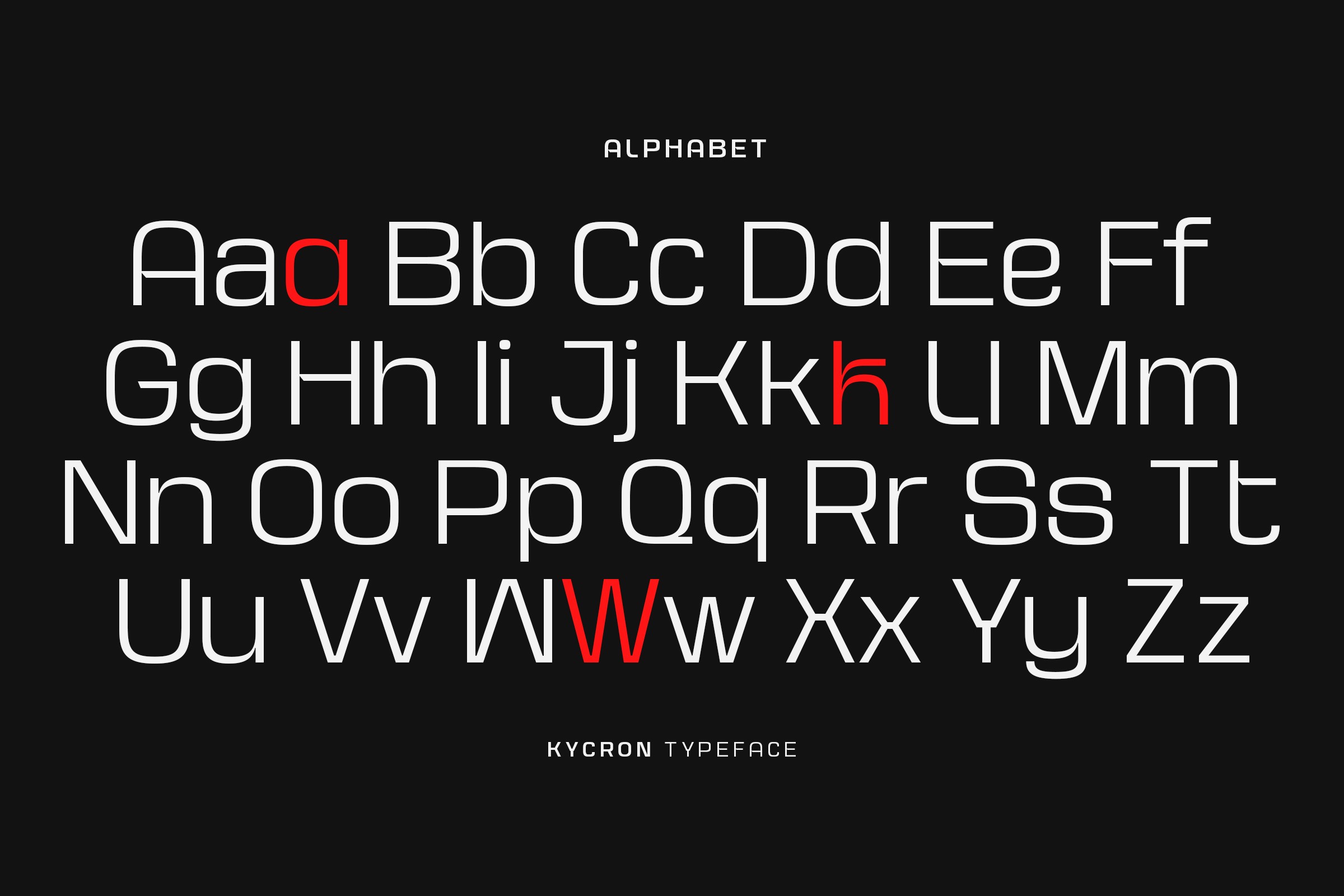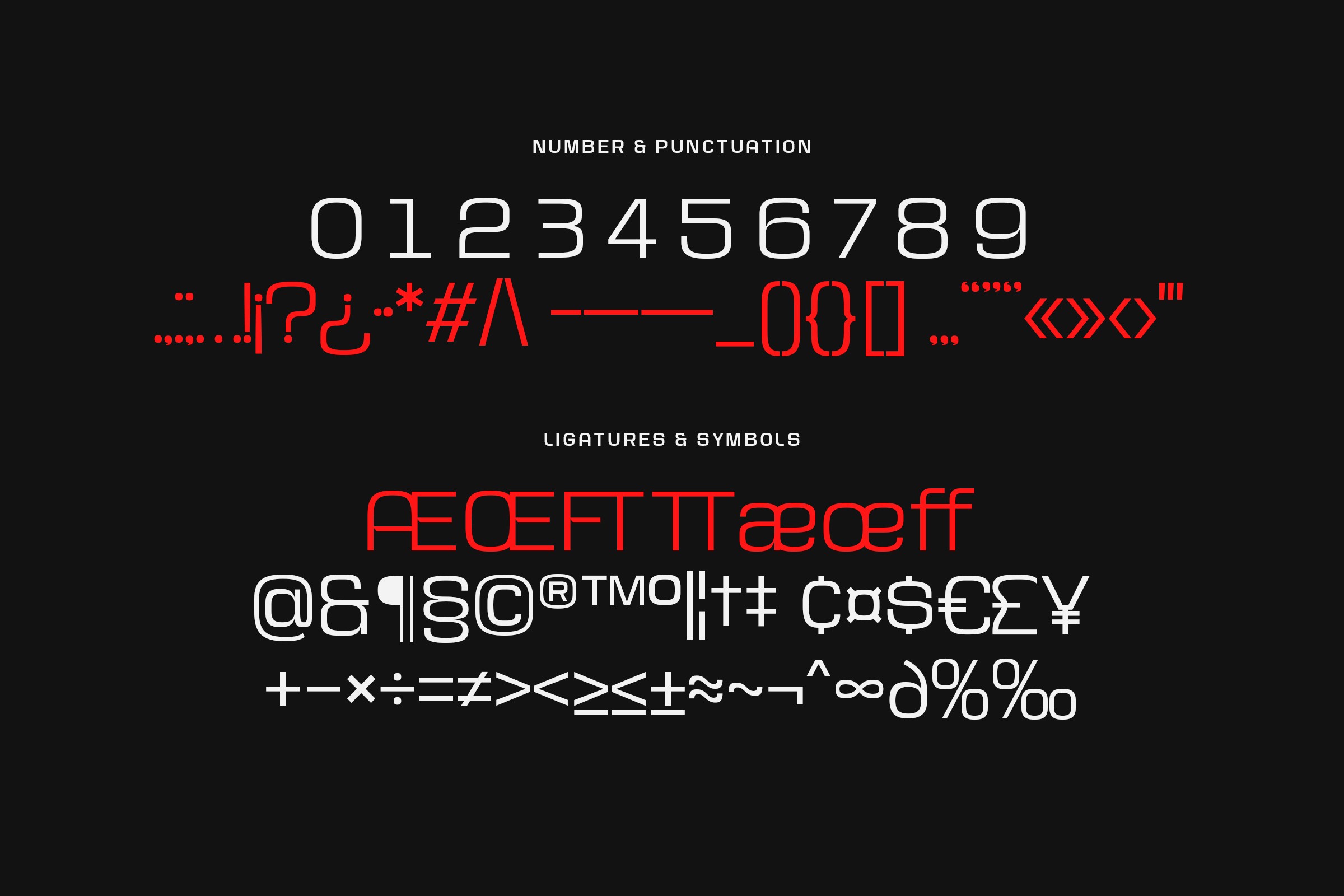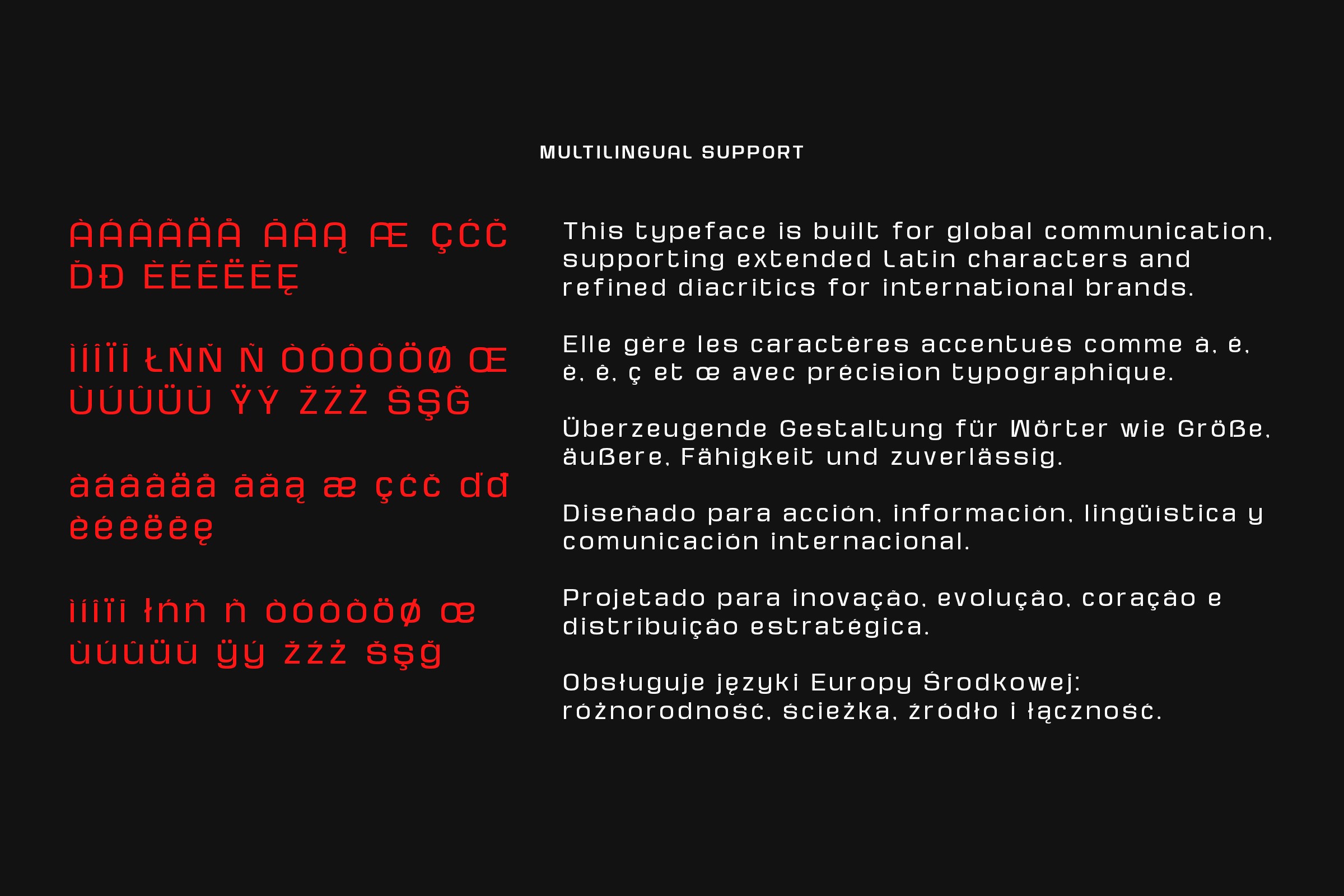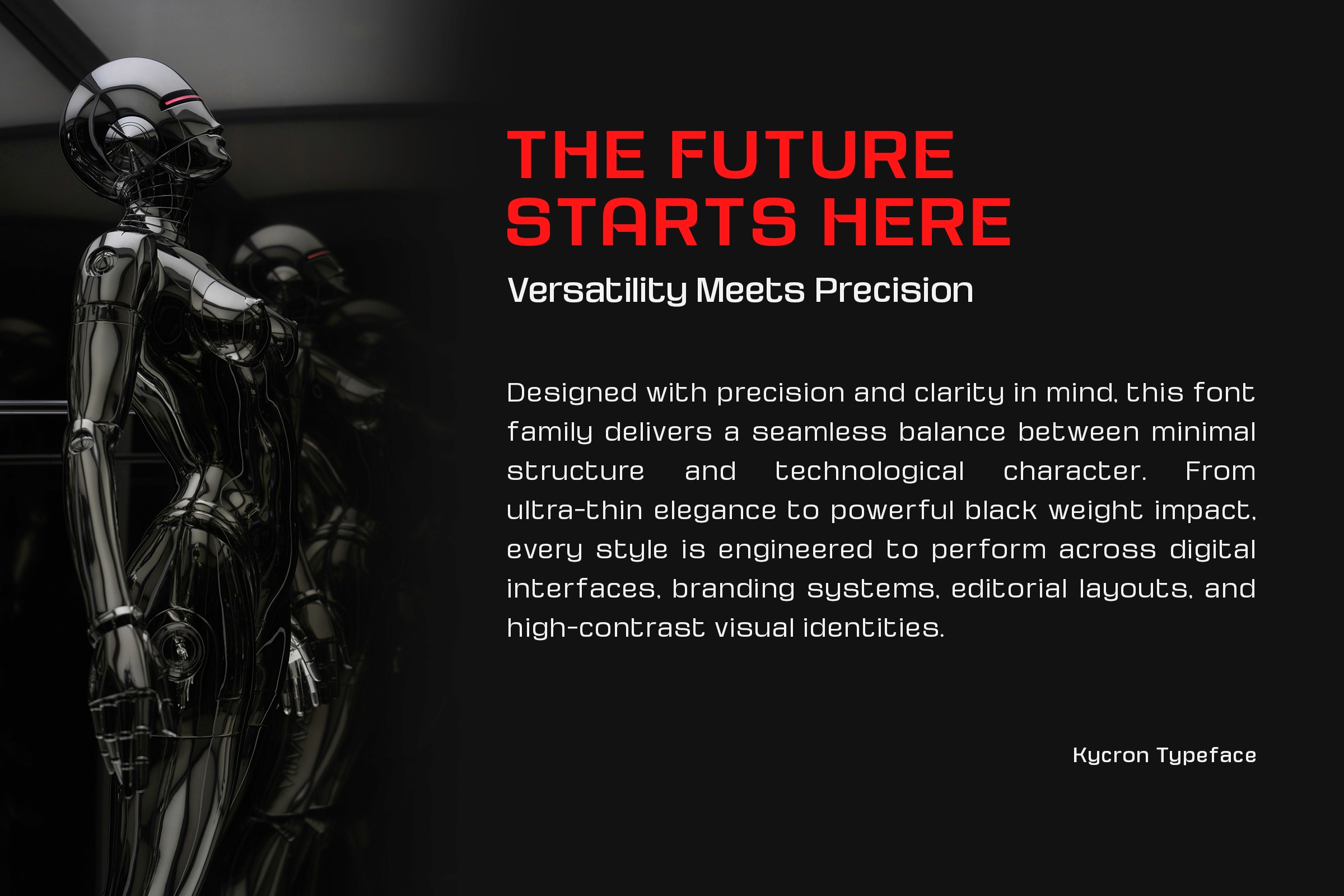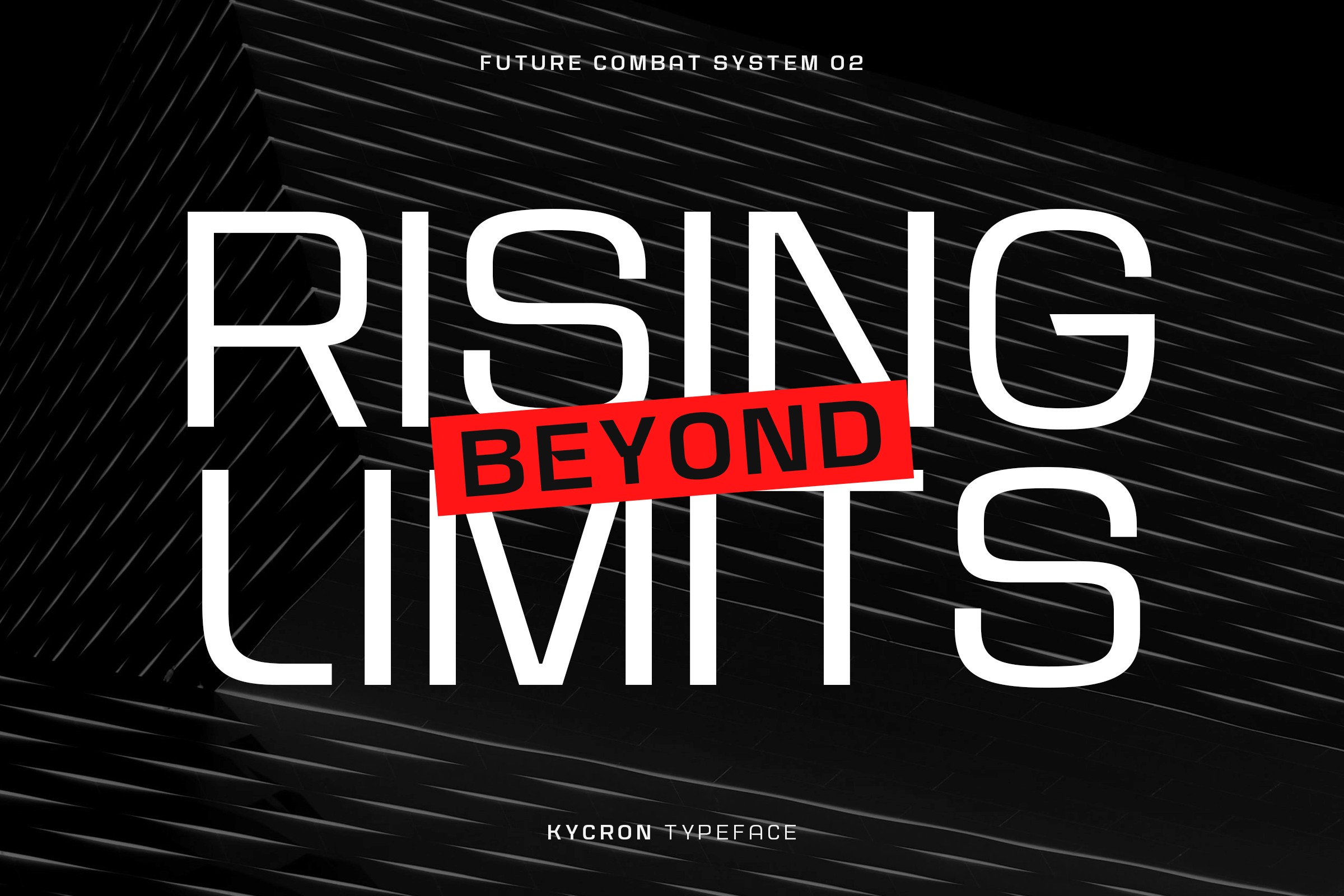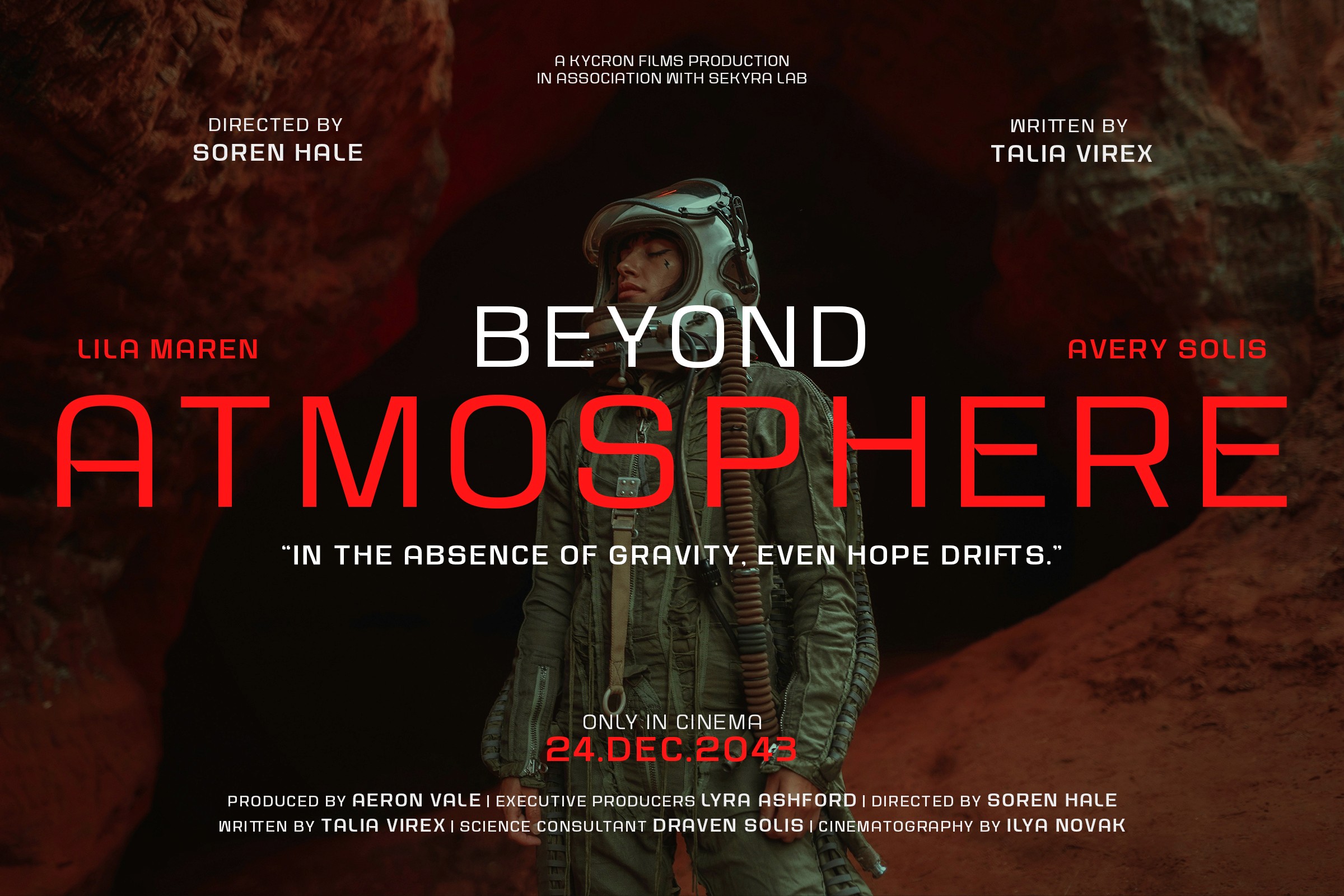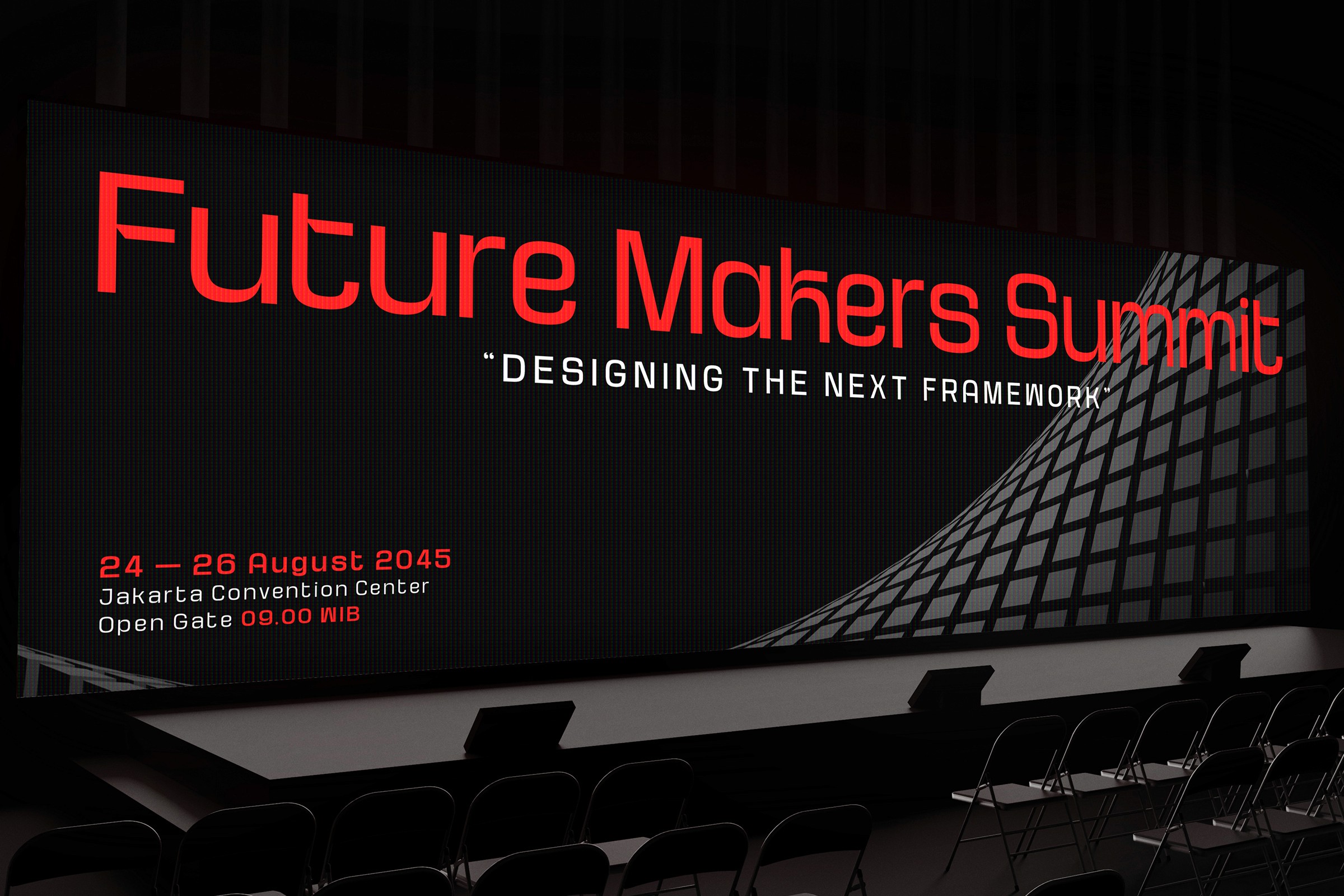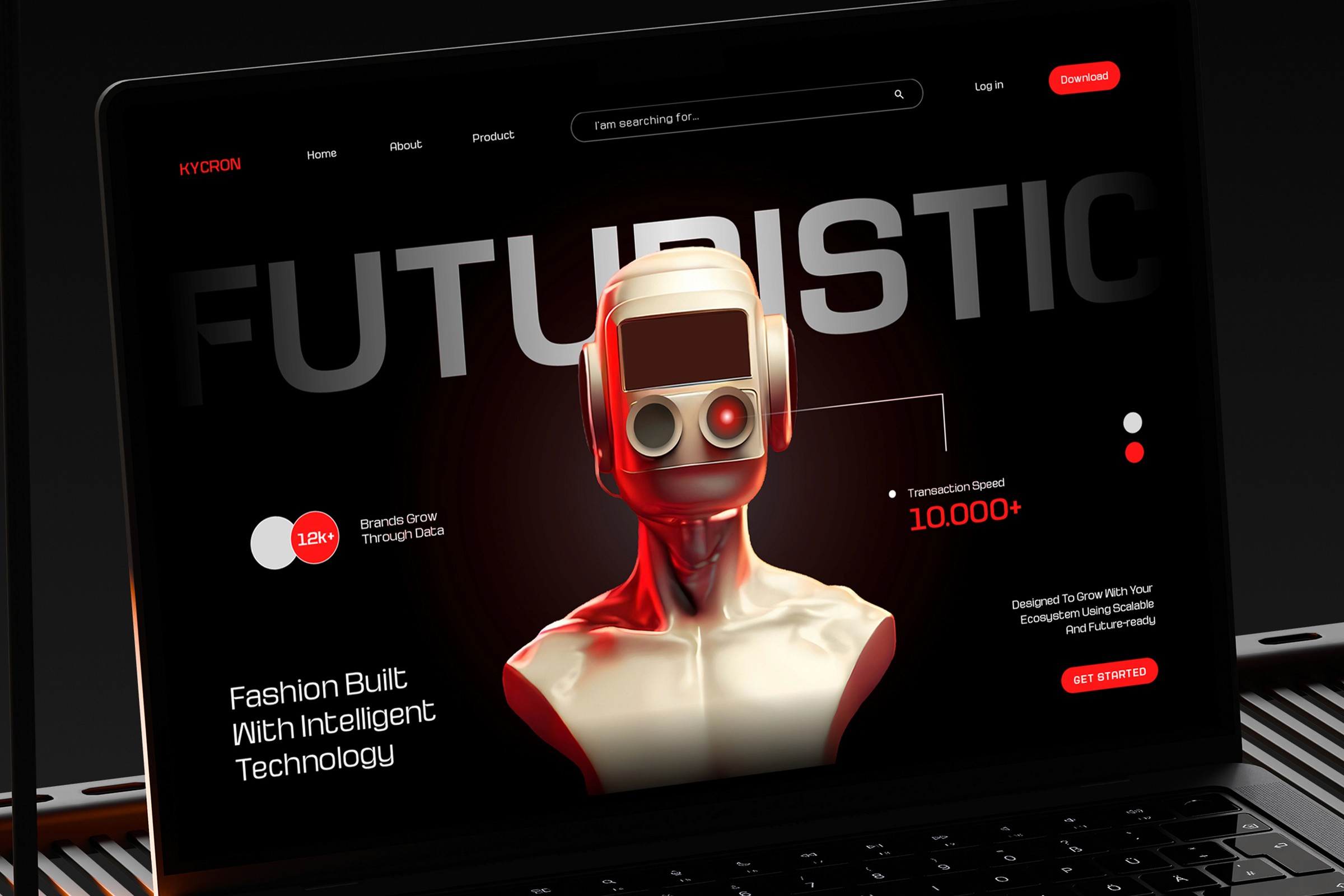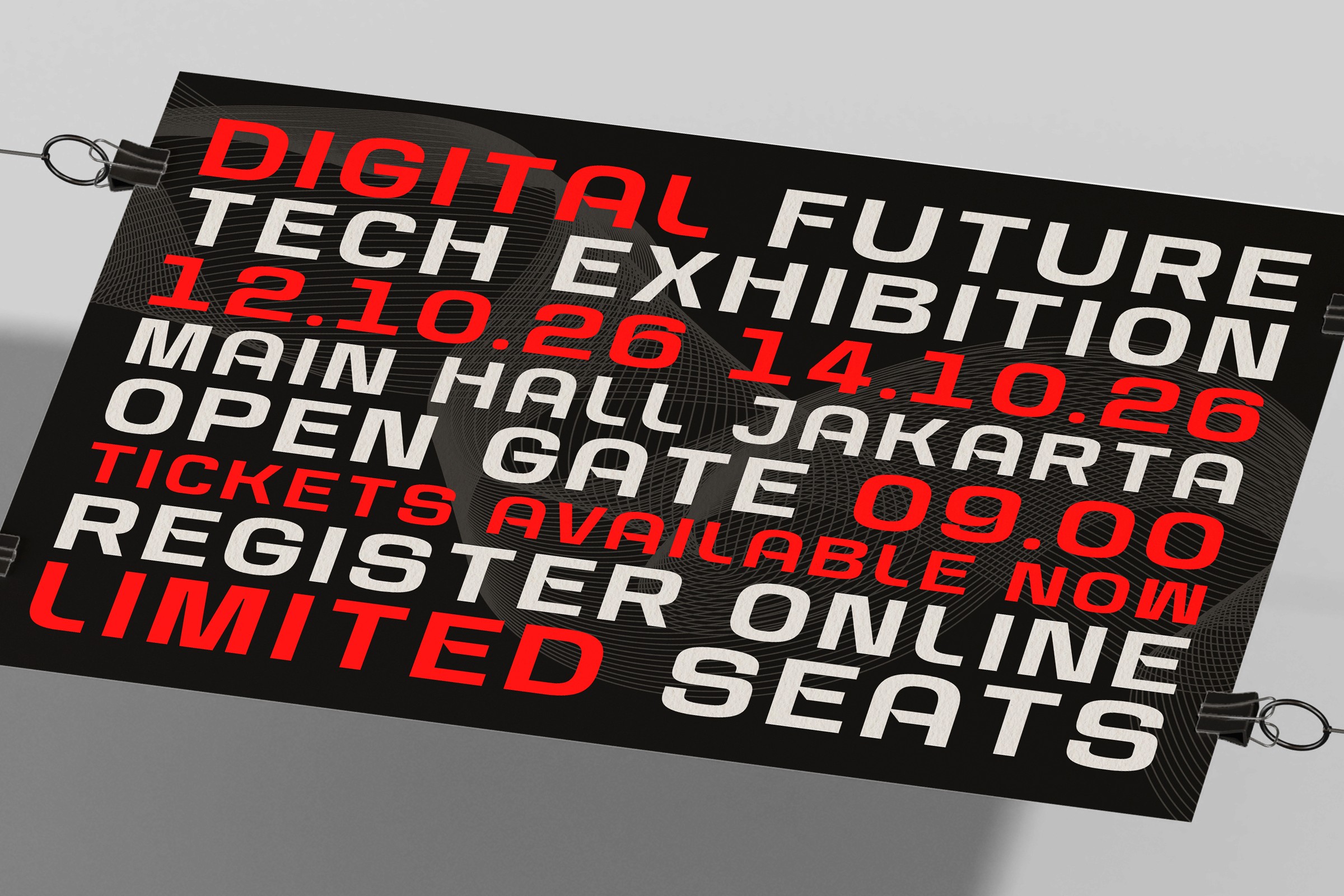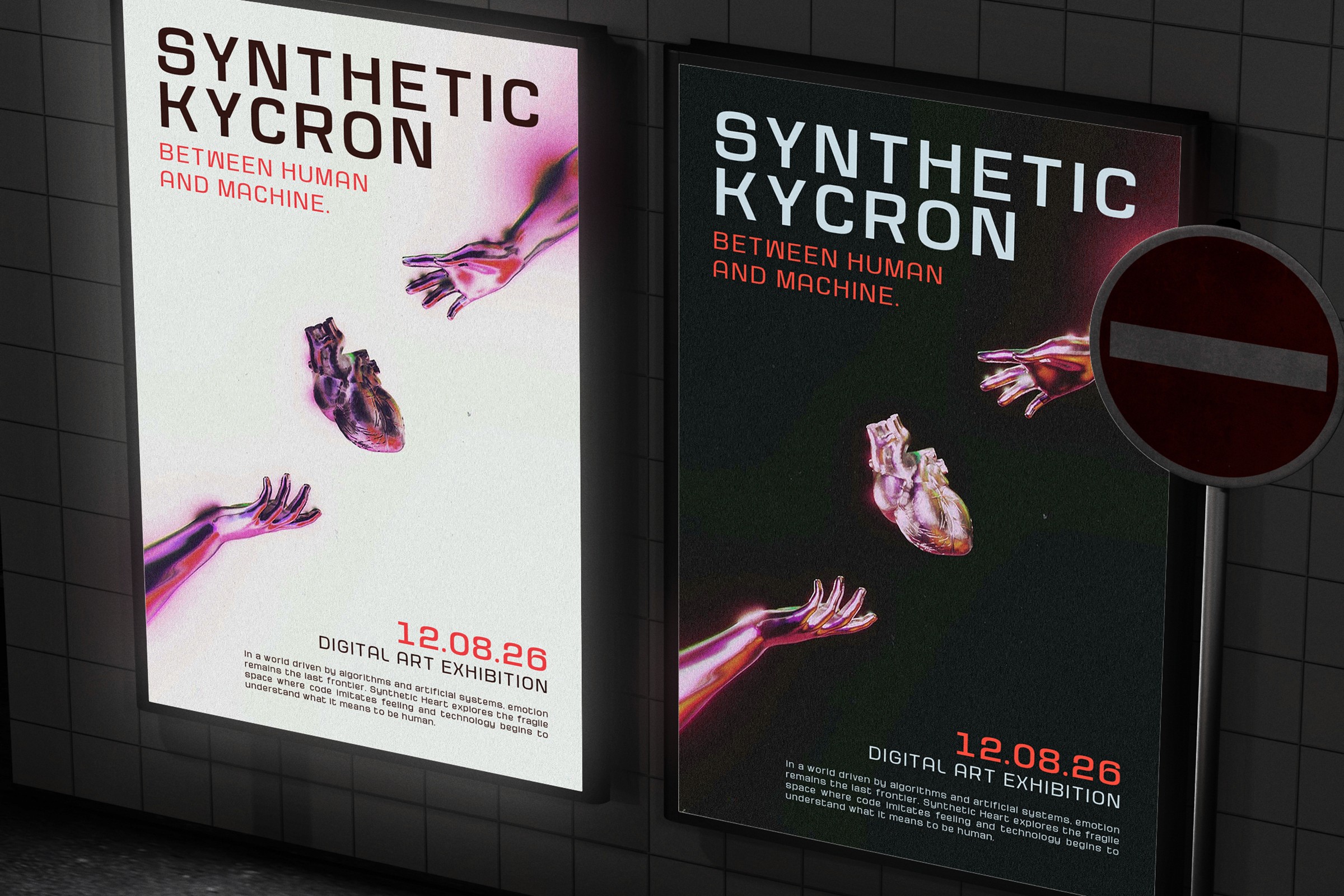
Kycron Font
Futuristic Sans
9 Weights
2026
Kycron is a futuristic display sans built on precision and minimal structure. Its geometric forms and sharp proportions create a clean, technological aesthetic designed for modern digital environments.
Clean geometric construction
9 weights from Thin to Black
Minimal yet distinctive structure
Highly versatile type system
Multilingual support
Tech branding
UI/UX design
Digital products
Futuristic visuals
9 Weights (Thin → Black)